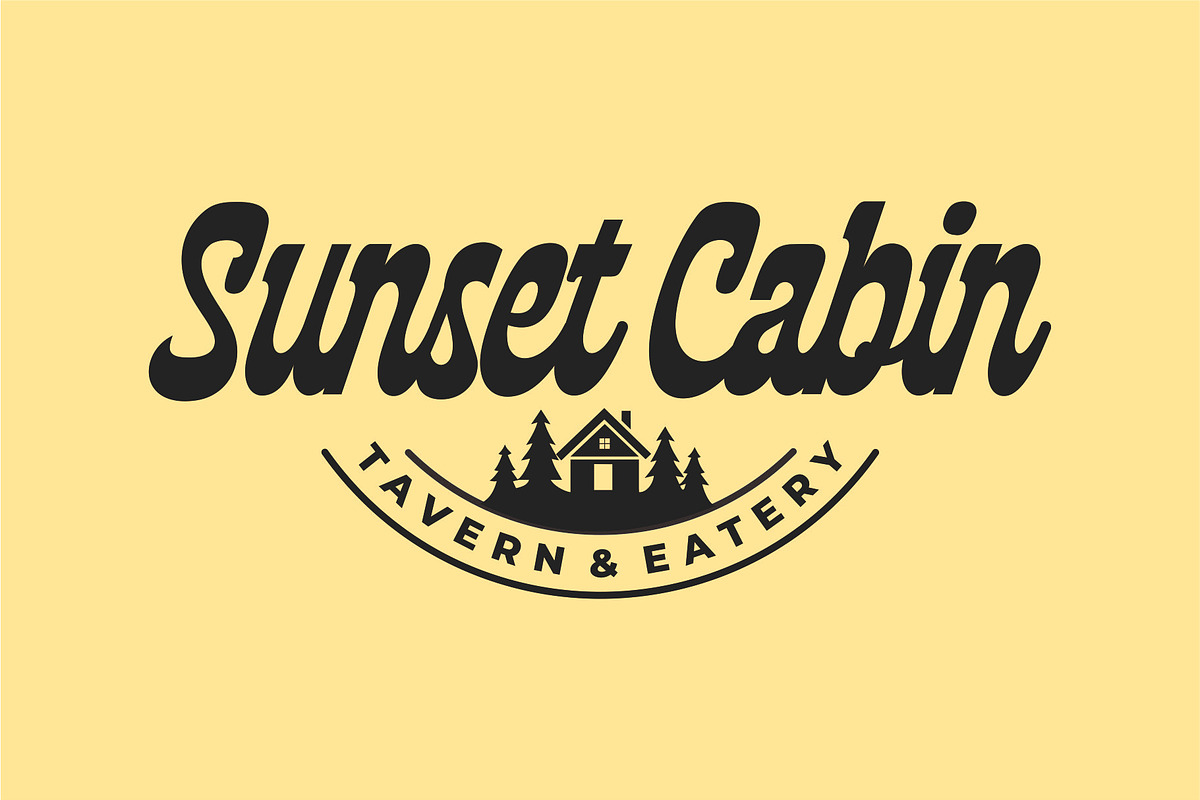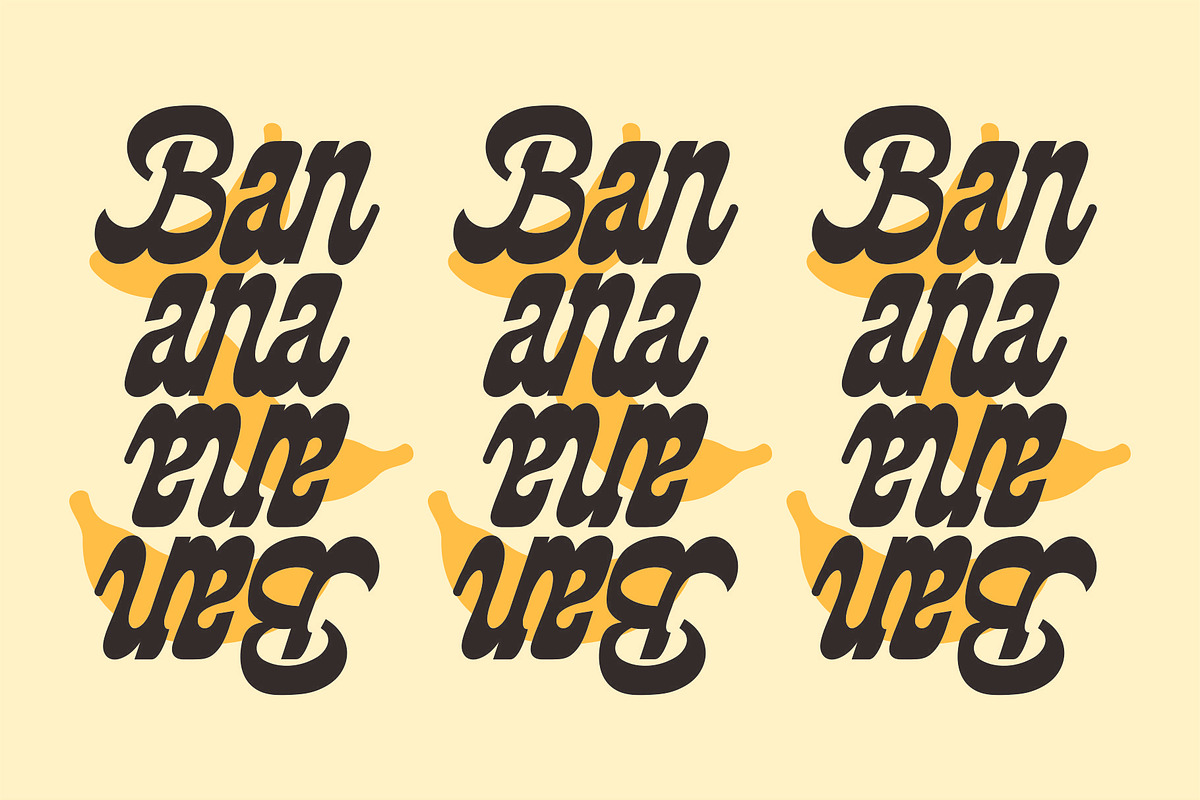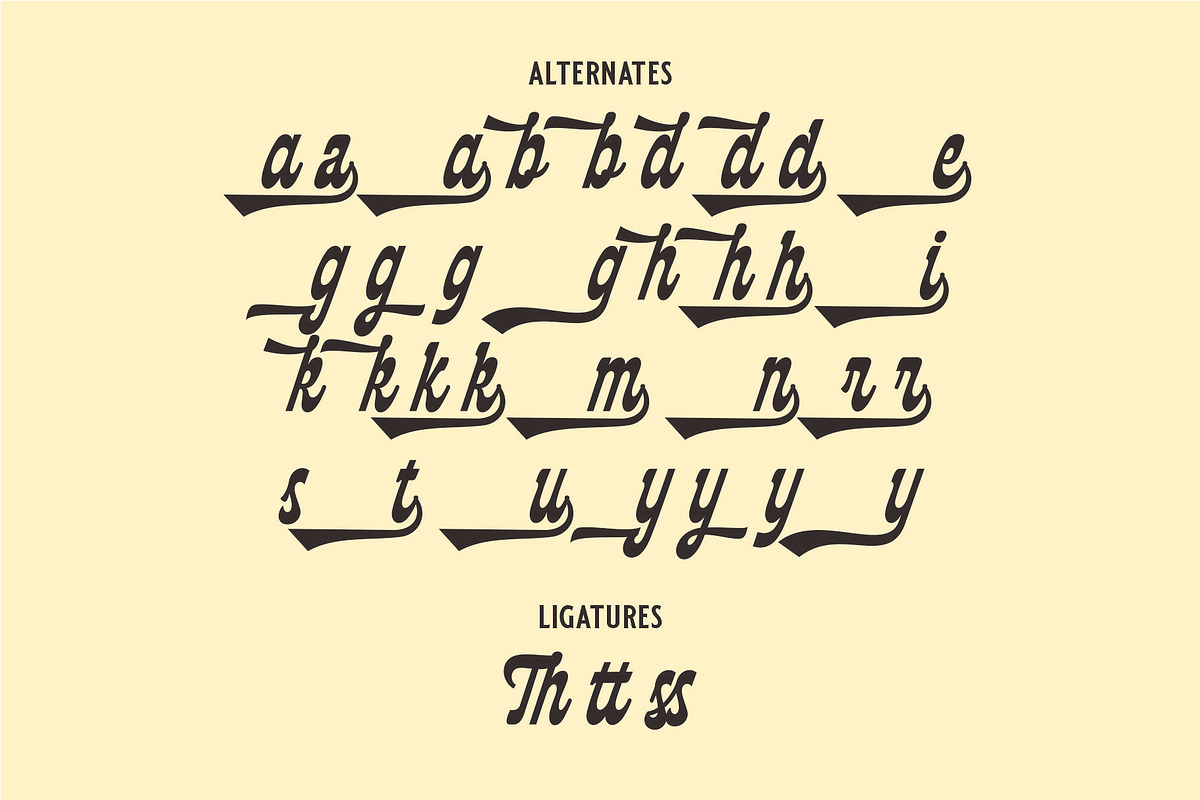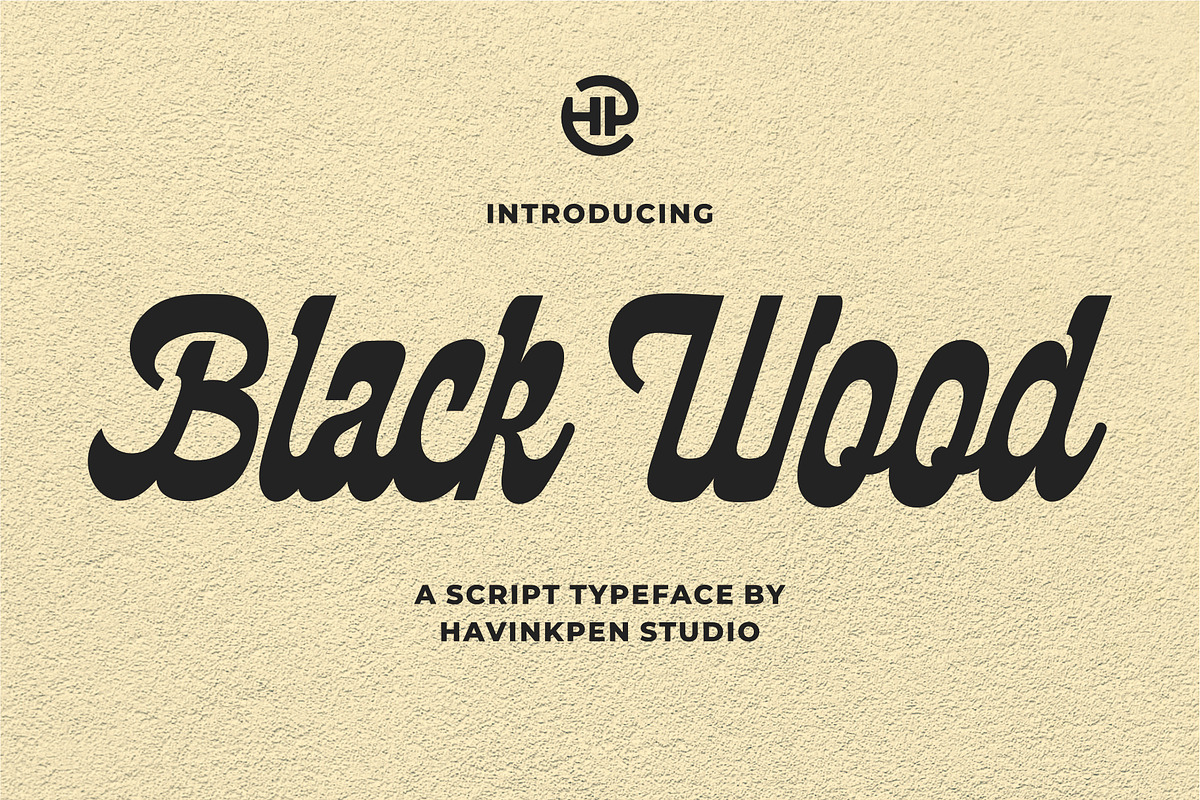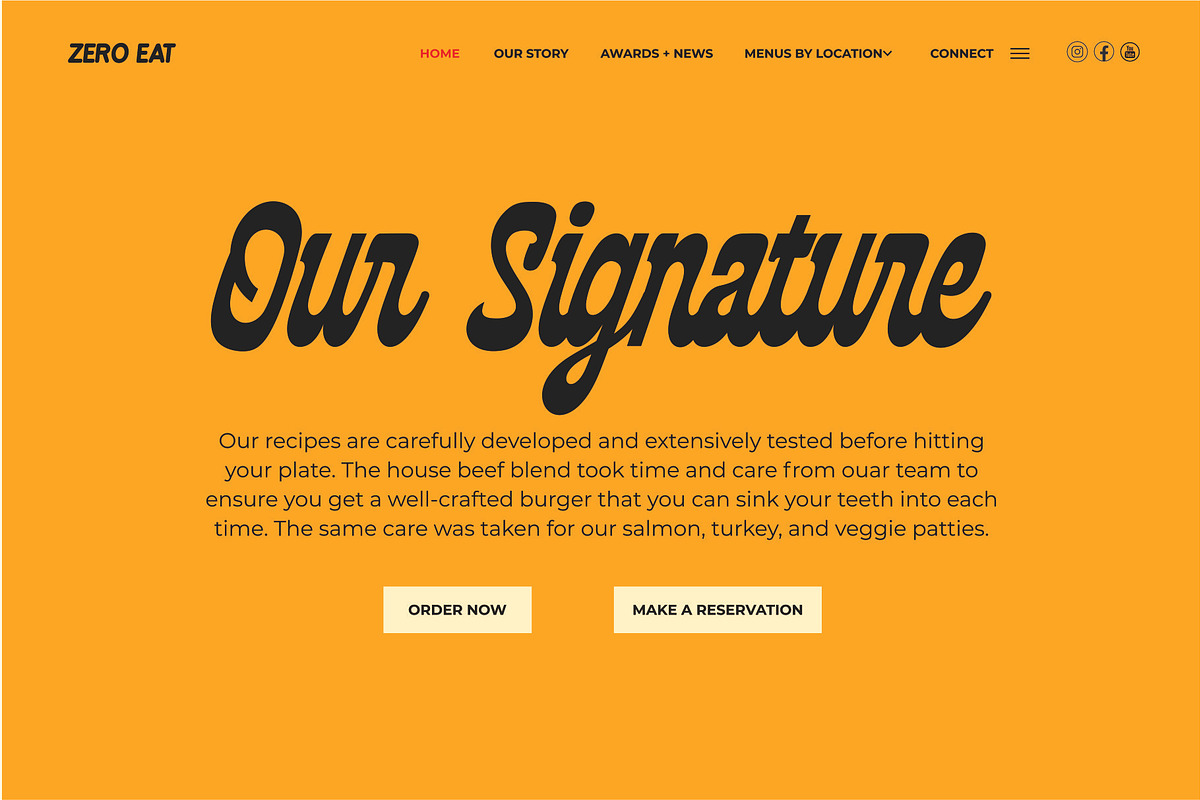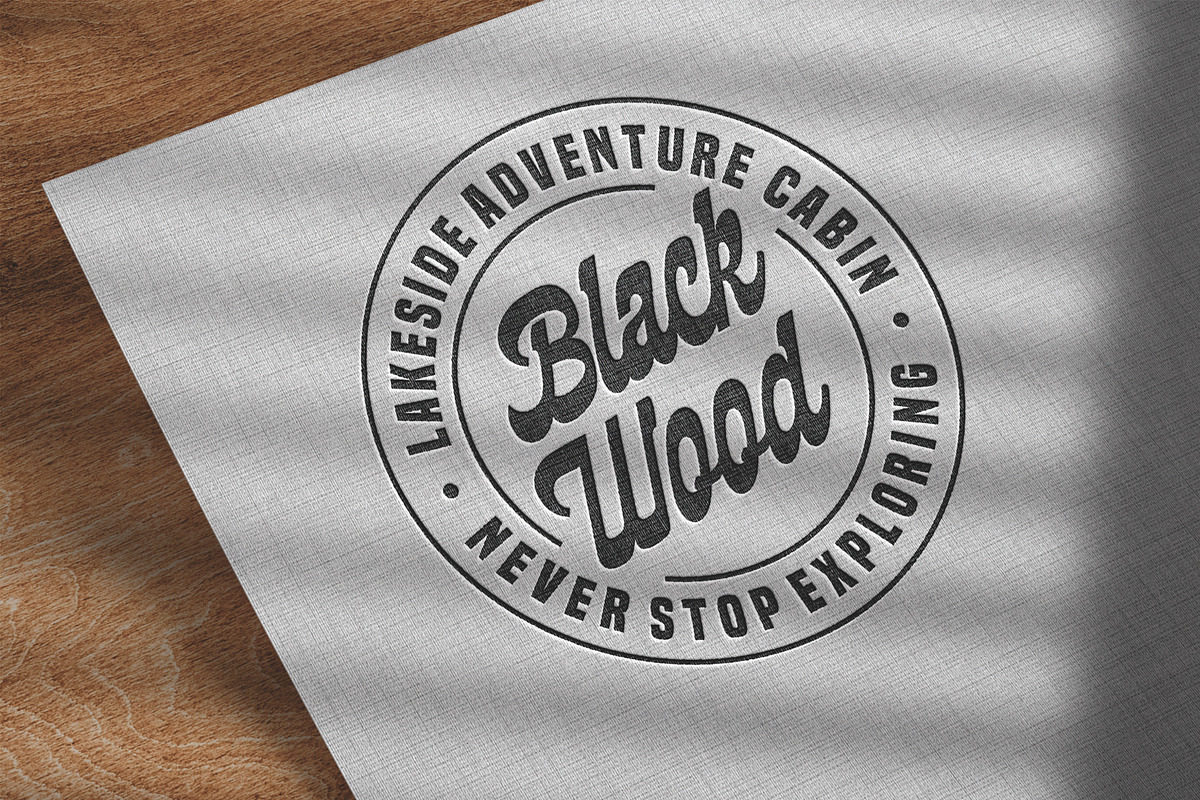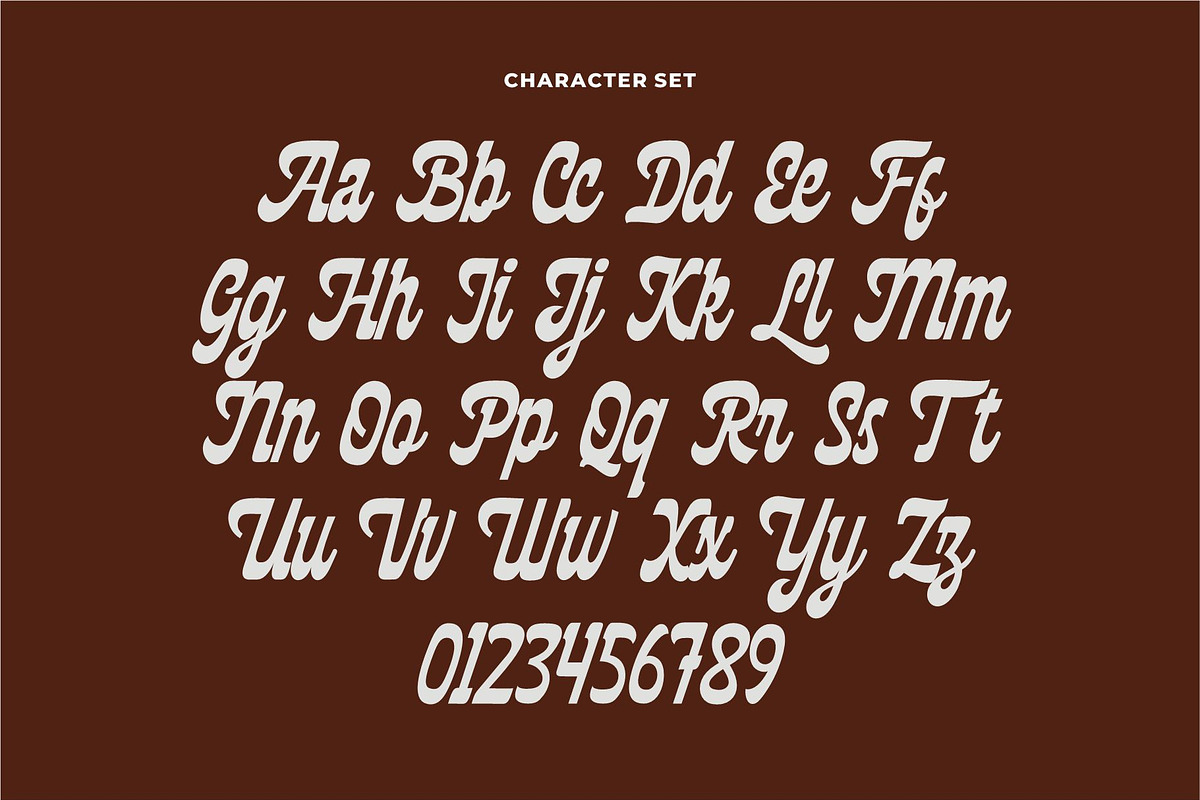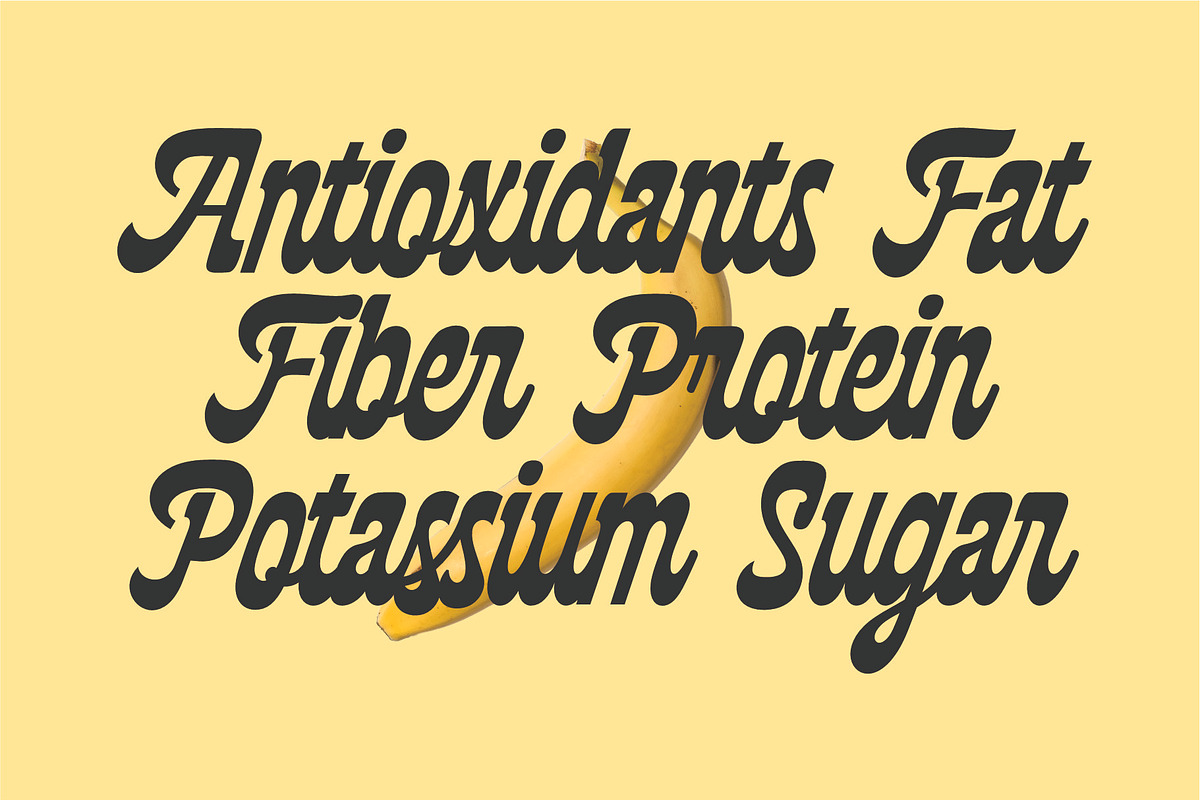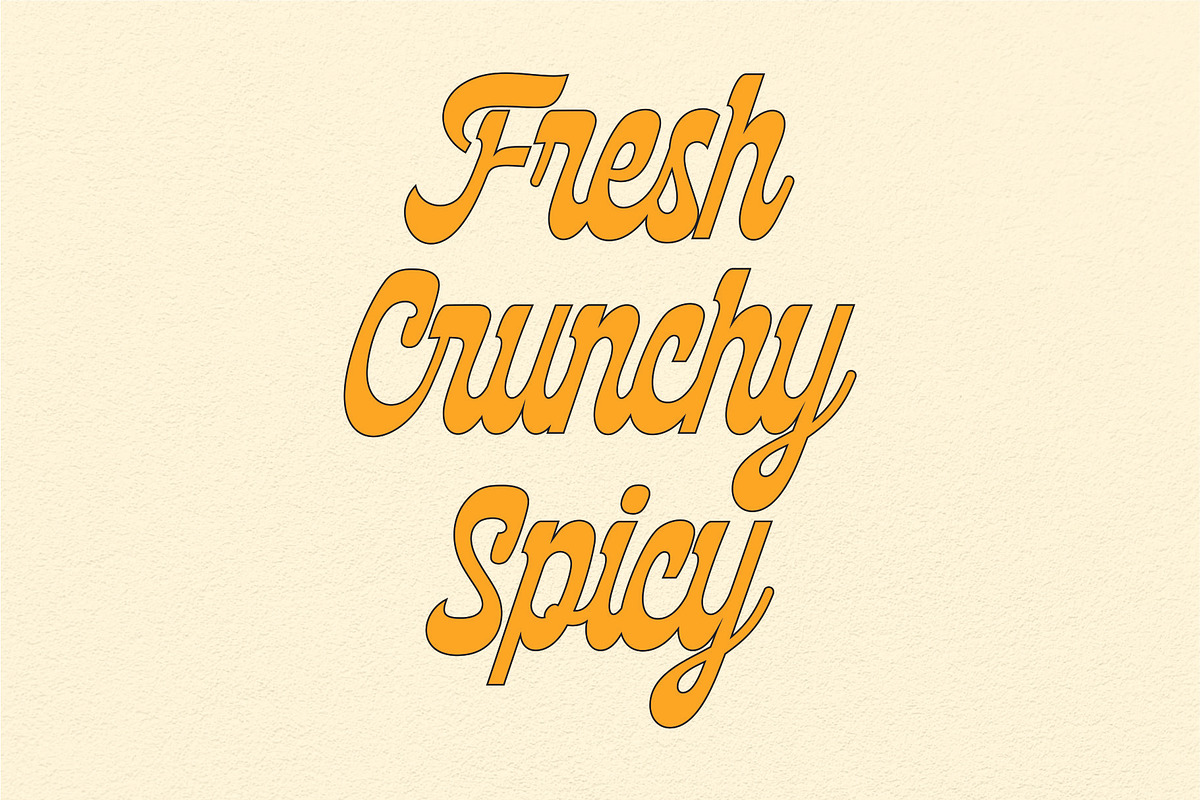
BLACK WOOD - Modern Classic Script
Black Wood is a classic script font with Strong stroke and a modern and unique look. This font is perfect for your creative projects such as Logotype, printed quotes, invitations, cards, product packaging, headers, Letterhead, Apparel , Web design, Magazine, Book, etc.